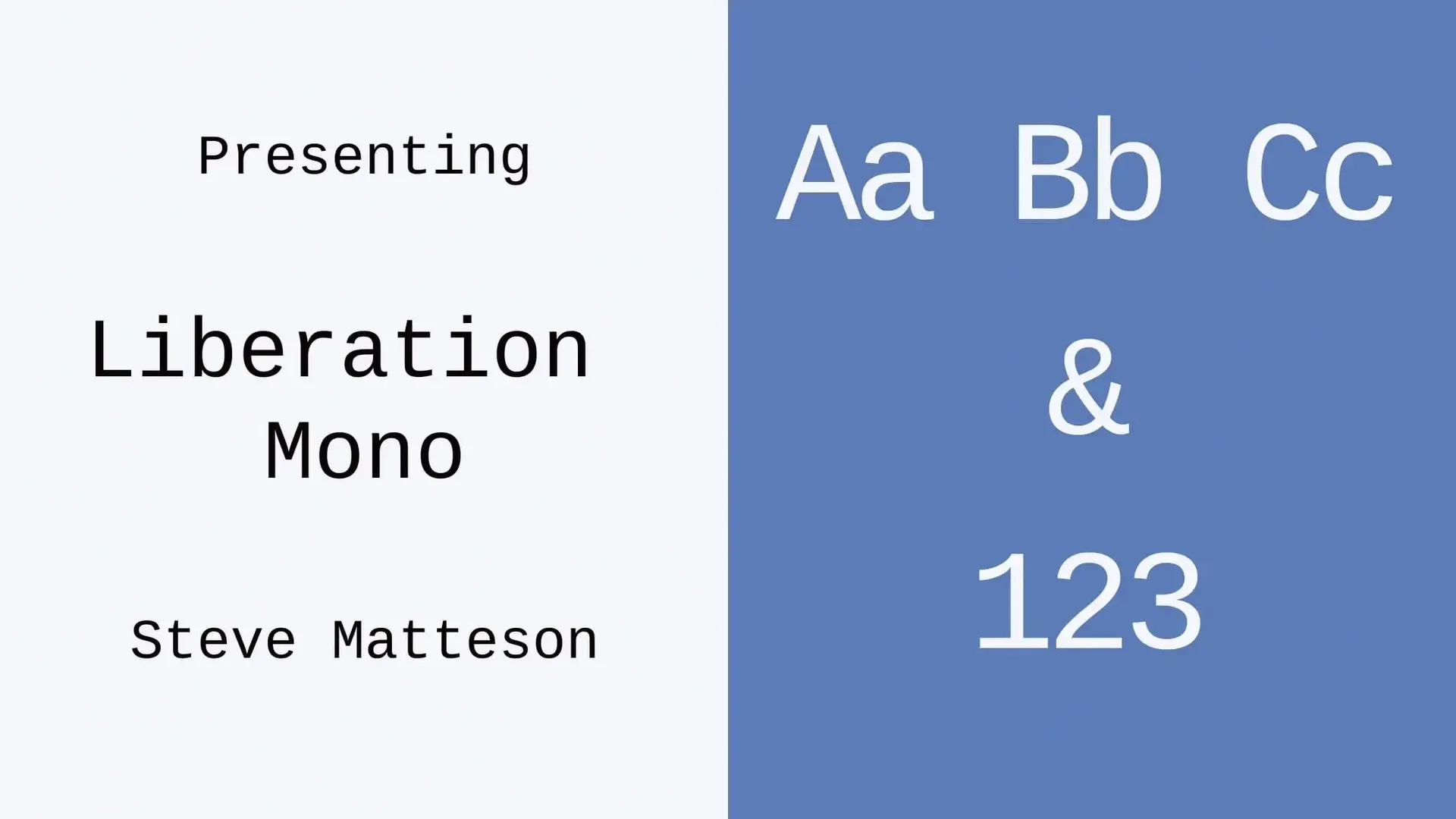
A monospaced font, likewise called a fixed-pitch, fixed-width, or non-proportional typeface, is a font style whose letters and also characters each inhabit the exact same amount of horizontal area. This contrasts with variable-width font styles, where the letters and spacings have different sizes. Monospaced font styles are customary on typewriters and also for typesetting computer code. Monospaced font styles were extensively made use of in early computers and also computer system terminals, which often had very minimal graphical capacities. Download your favorite monospace font from the collection below.